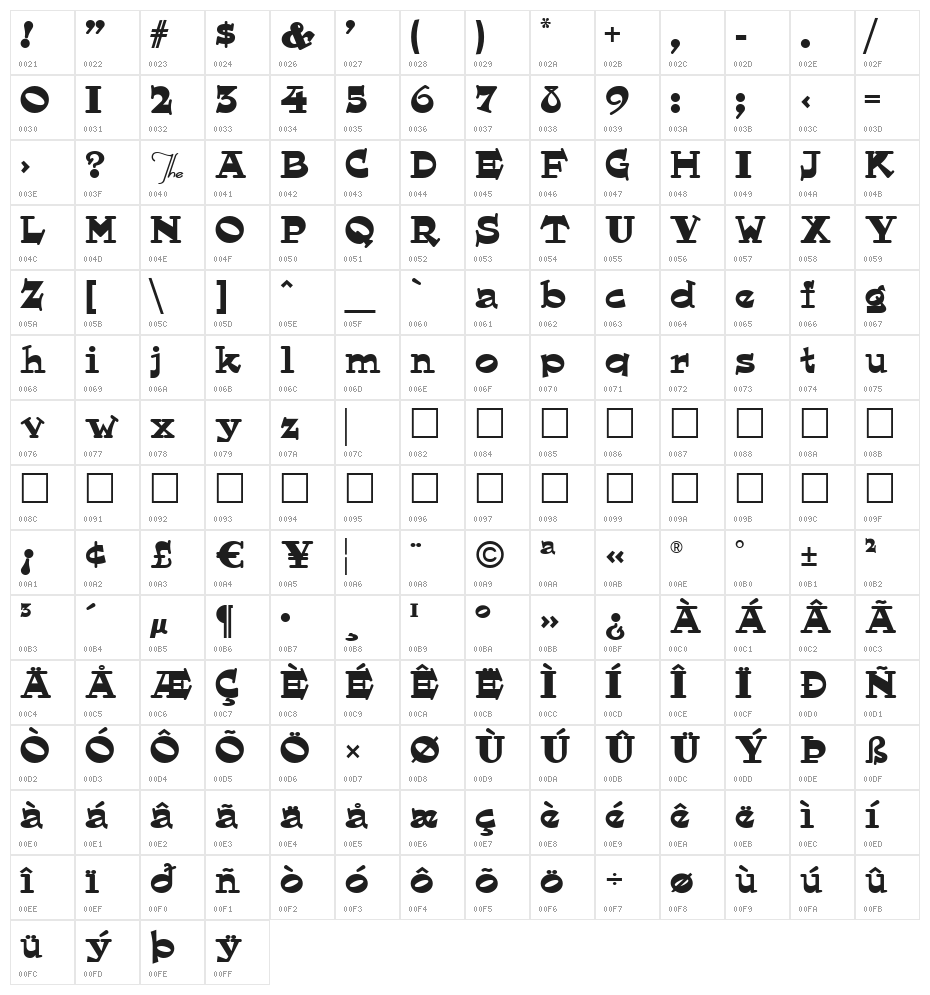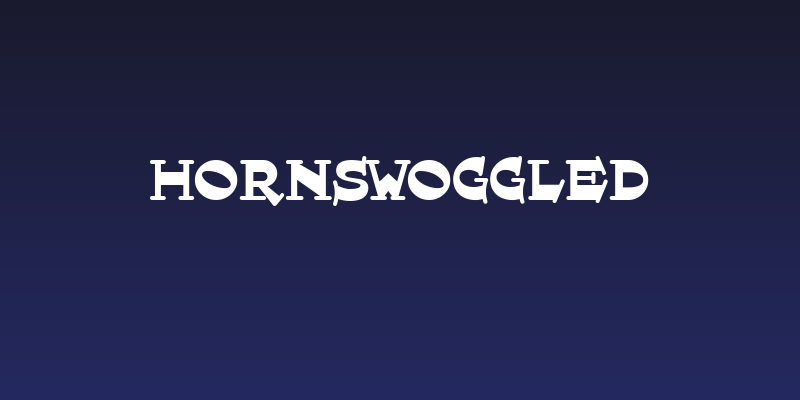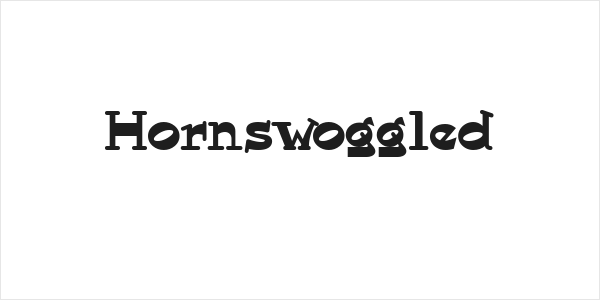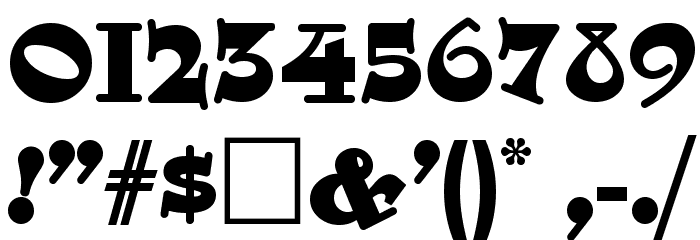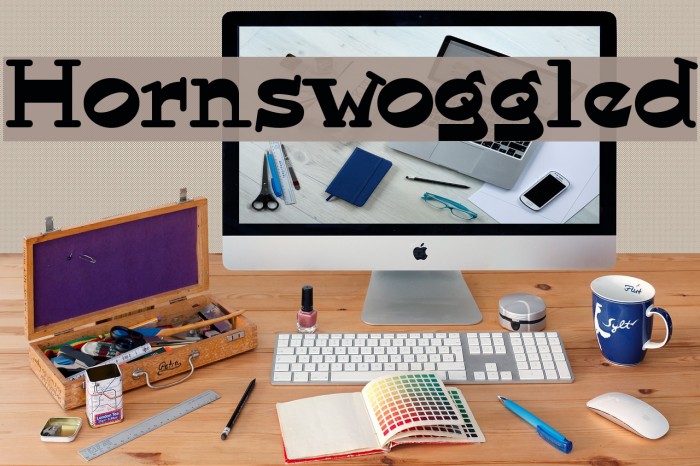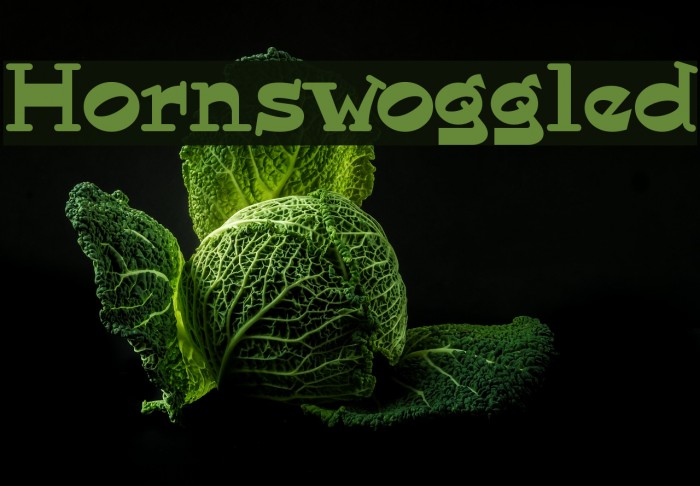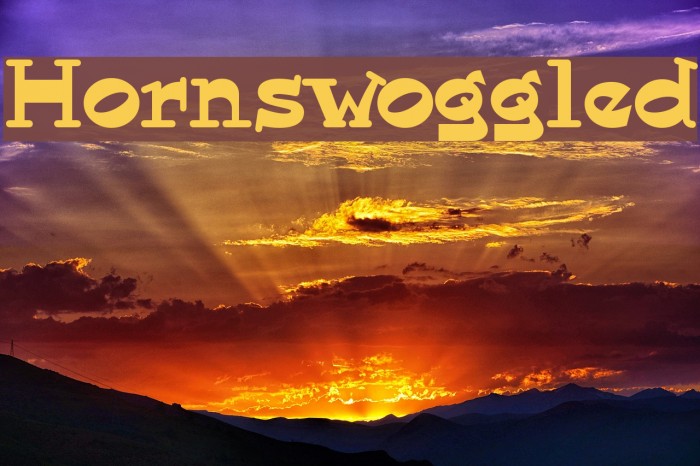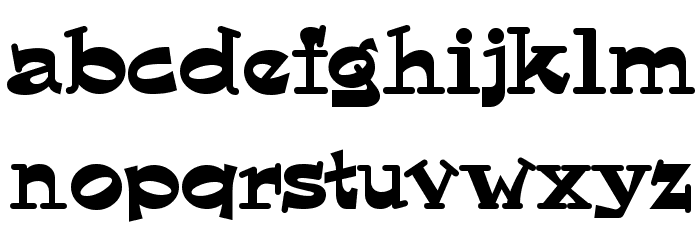
Hornswoggled Font
Hornswoggled Description
This font exudes a playful and whimsical character with its bold and chunky letterforms. The exaggerated serifs and slightly uneven strokes give it a quirky and unique appearance, making it stand out in any design. The uppercase letters are particularly striking with their strong presence, while the lowercase letters maintain a consistent style that complements the overall look. The numbers and special characters follow the same bold and distinctive design, ensuring a cohesive feel across all elements. This font's style is reminiscent of vintage circus or fairground posters, adding a touch of nostalgia and fun.
| Overall Style | Vintage, Playful |
| Use Case | Headlines, Posters, Branding |
| Proposed Projects | Ideal for use in posters, children's books, playful branding, and any design requiring a touch of whimsy and boldness. |